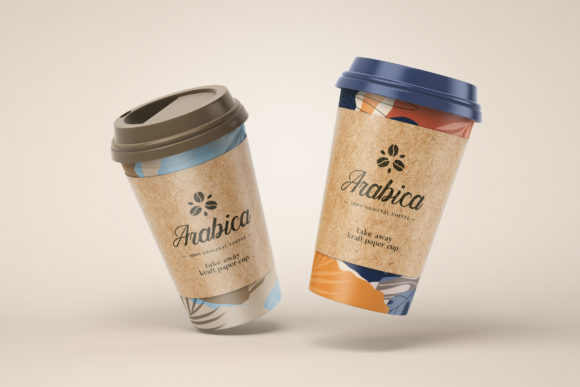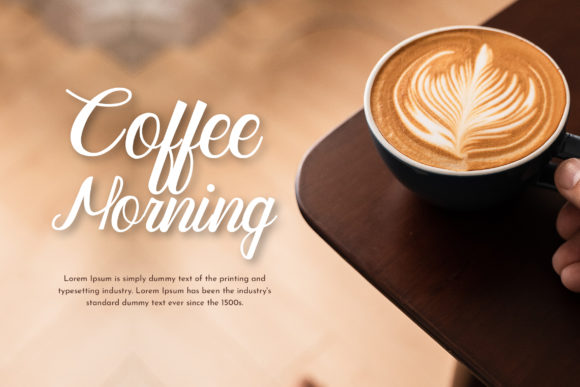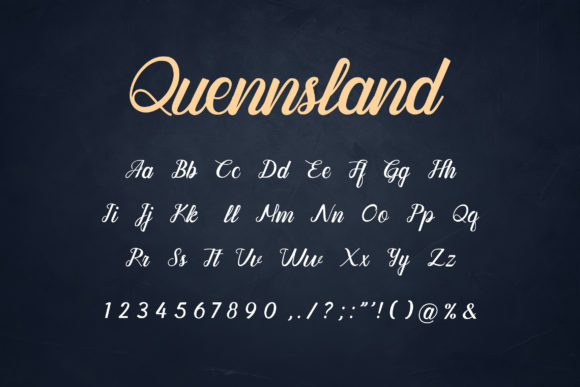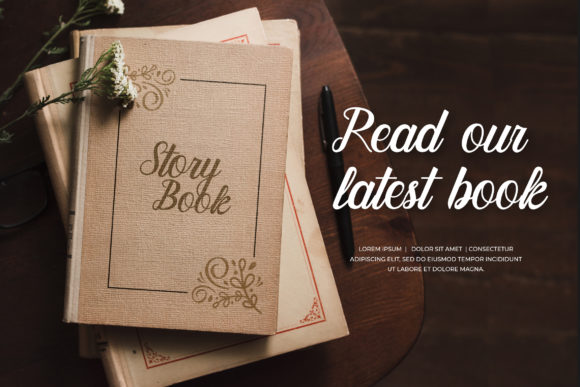
Introduction to Quennsland Font
Have you ever been working on a creative project and suddenly, you’re stuck on finding the perfect font to bring your vision to life? I know I have! It’s like searching for a missing puzzle piece – you know it’s out there, but where? That’s exactly how I felt until I stumbled upon the beautiful Quennsland Font. Its delicate, elegant, and flowing handwritten style made my design come alive, and I knew I had to share it with fellow designers.
As a valuable design resource, Quennsland Font offers a high-quality, free download that’s perfect for any creative project. Whether you’re working on a blog post, social media graphic, or even a wedding invitation, this font is sure to impress. With its transparent background, Quennsland Font seamlessly integrates into any design, making it a must-have for any designer’s toolkit.
Key Features of Quennsland Font
- Quennsland Font is available in multiple weights and styles, providing designers with a range of options to suit their creative project’s needs.
- Designed with high resolution in mind, this font is suitable for use in both print and digital media, ensuring crisp and clear text at any size.
- Perfect for designers looking for a free, high-quality design resource to elevate their creative project, Quennsland Font is a valuable addition to any design library.
Honest Review: Quennsland Font
I recently stumbled upon the Quennsland Font and was excited to give it a try in my next creative project. The font’s high quality and sleek design immediately caught my attention. One of the standout features is its versatility, making it perfect for a wide range of design applications.
- What works well: ✨ Quennsland Font is available for free download, making it a valuable resource for designers on a budget. The font’s transparent background also makes it easy to layer and combine with other design elements.
- What works well: ✨ The font’s clean and modern aesthetic is perfect for creative projects that require a touch of sophistication.
However, I did encounter a few limitations while using the Quennsland Font. ⚠️ One of the main issues is that the font’s character set is limited, making it less suitable for projects that require a wide range of characters.
Overall, I was impressed with the Quennsland Font’s design and functionality. While it may not be perfect for every project, it’s definitely a valuable resource to have in your design arsenal. With its high quality and free download, it’s definitely worth checking out for your next creative project.
How to Use Quennsland Font
The Quennsland Font is a high-quality design resource perfect for creative projects. With its clean and modern style, it’s ideal for a variety of applications, including logos, branding materials, and digital graphics. One of its standout features is its transparent background, making it easy to integrate into any design.
For the most out of the Quennsland Font, use it for headings and titles to create a strong visual identity. You can also use it for branding materials, such as business cards, letterheads, and brochures. Additionally, the Quennsland Font is perfect for digital graphics, including social media graphics, infographics, and presentations.
What is the recommended font size for using Quennsland Font in a design project?
The recommended font size for Quennsland Font depends on the specific design project and the desired visual impact. However, as a general rule, we recommend using font sizes between 12pt and 48pt for body text, and larger sizes for headings and titles. This will ensure that the font is legible and effective in your design, even with a transparent background.